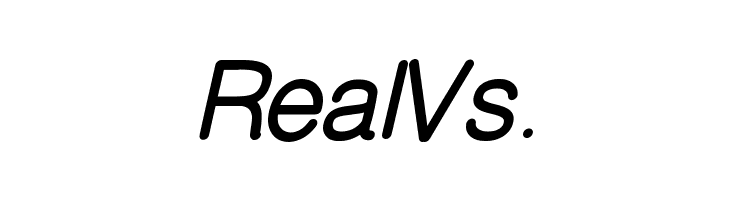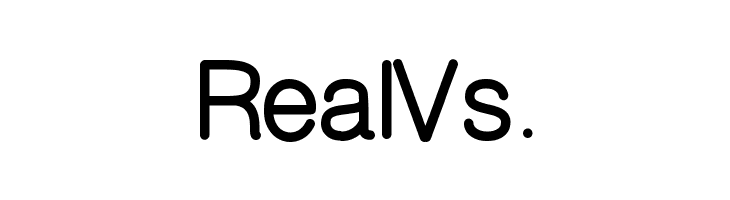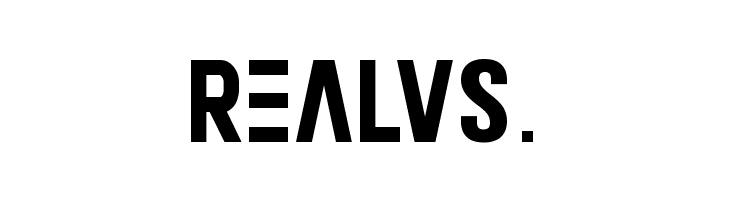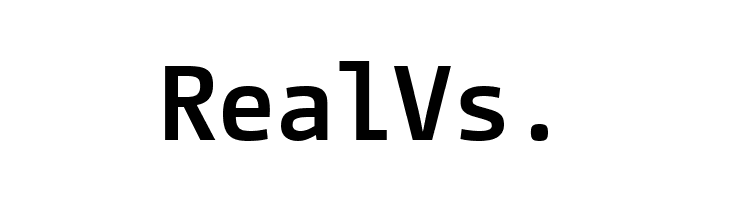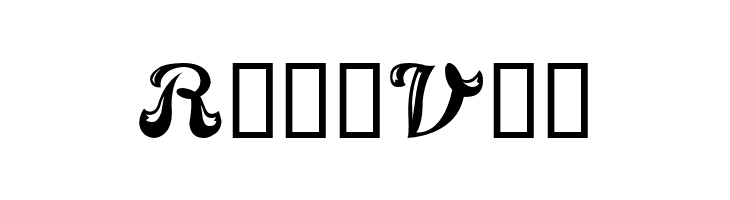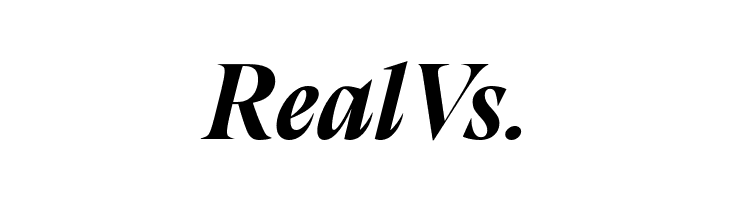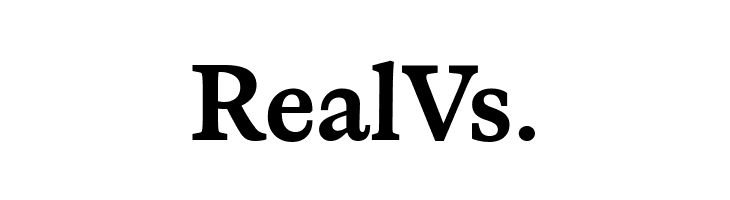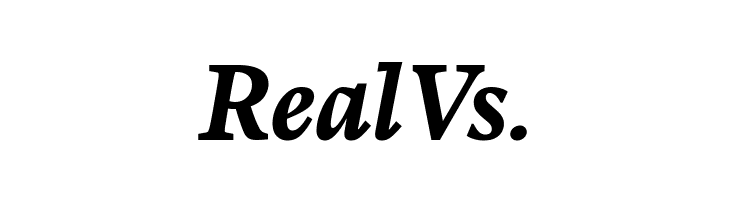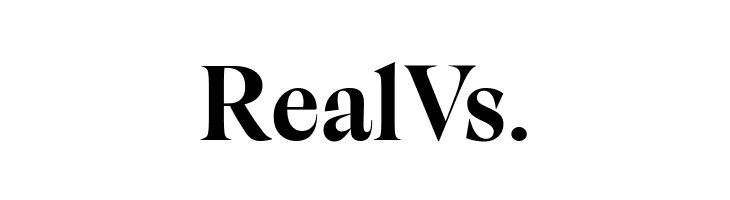
A bold, rounded font with a playful and modern aesthetic.
A bold, italicized font with rounded, slightly condensed characters.
A bold, artistic font with sharp angles and intersecting lines.
A bold, geometric font with angular shapes and a mysterious, rune-like appearance.
A bold, modern sans-serif font with clean lines and uniform strokes.
A bold, modern sans-serif font with clean lines and excellent readability.
A bold, geometric typeface with a modern and assertive style.
A bold serif font with high contrast and sharp serifs, ideal for headlines.
A bold, italic serif font with elegant, flowing letterforms and pronounced serifs.
A bold serif font with strong strokes and classic elegance.
A bold, italic serif font with a classic and elegant style.
A bold, modern sans-serif font with clean lines and strong readability.
A bold, italicized sans-serif font with a modern and clean design.
A bold, modern font with rounded edges and a slightly condensed form.
A bold, modern sans-serif font with rounded, geometric letterforms.
A bold and oblique sans-serif font with a modern and dynamic style.
A modern, monospaced font ideal for coding and technical documents.
A modern, bold, italic monospaced font with medium contrast, perfect for coding.
A bold, modern sans-serif font with strong, uniform strokes and excellent readability.
Bold, block-style font with a three-dimensional effect and thick outlines.
A bold, vintage-style font with strong, blocky characters and decorative flourishes.
A bold, thick-stroked font with a strong, impactful presence.
A playful, bold, and rounded font with smooth curves and a whimsical touch.
A bold, italic font with a dripping, candle-like effect.
A bold, decorative font with playful, high-contrast letterforms.
A bold, playful font with a candy-like, three-dimensional appearance.
A bold, playful font with a unique striped pattern and rounded characters.
An elegant, flowing script font with bold, cursive letterforms.
A bold, artistic font with playful, irregular forms and thick strokes.